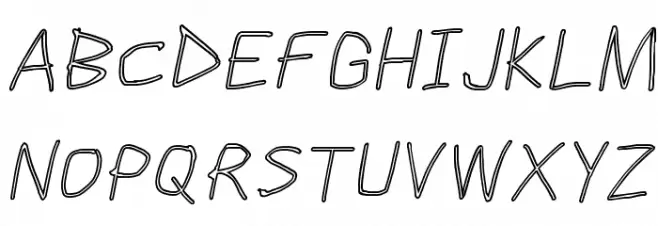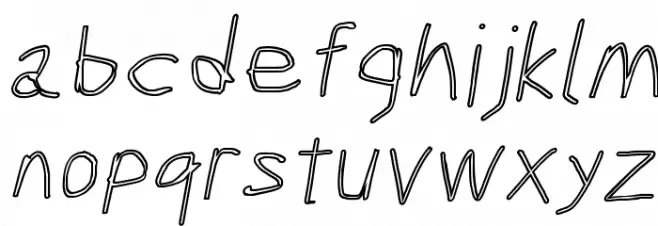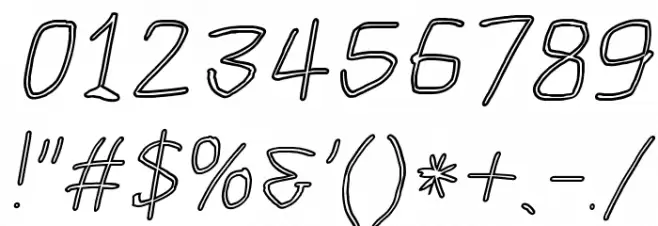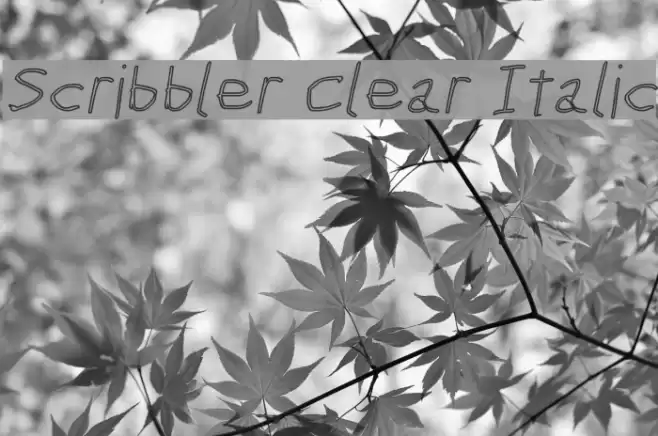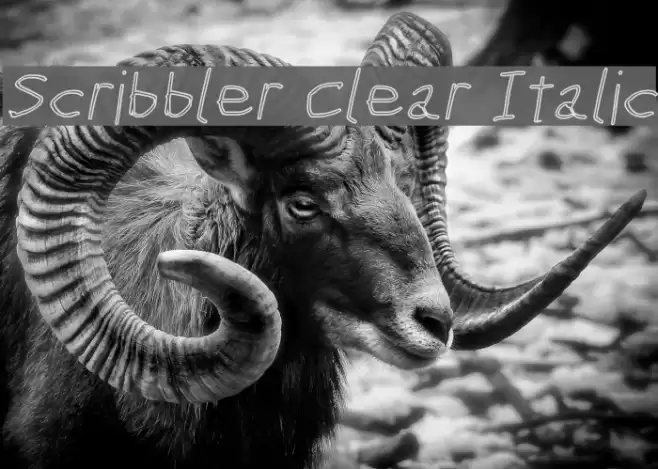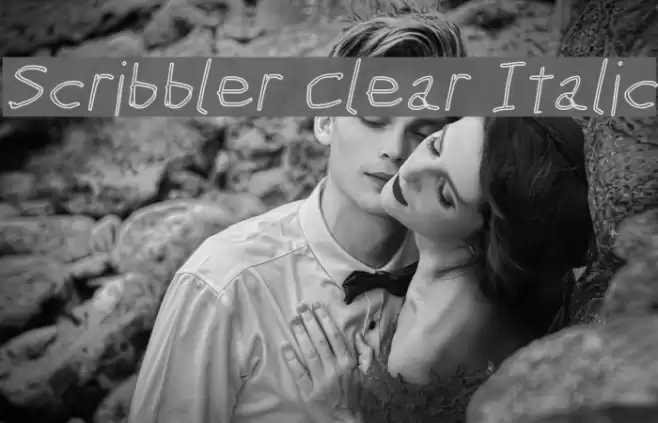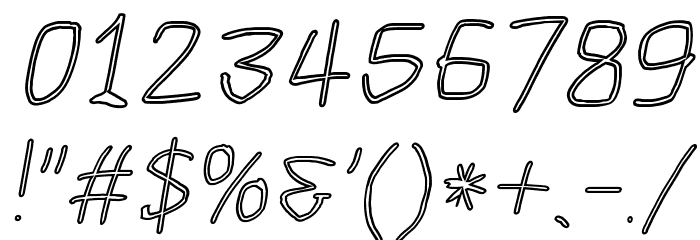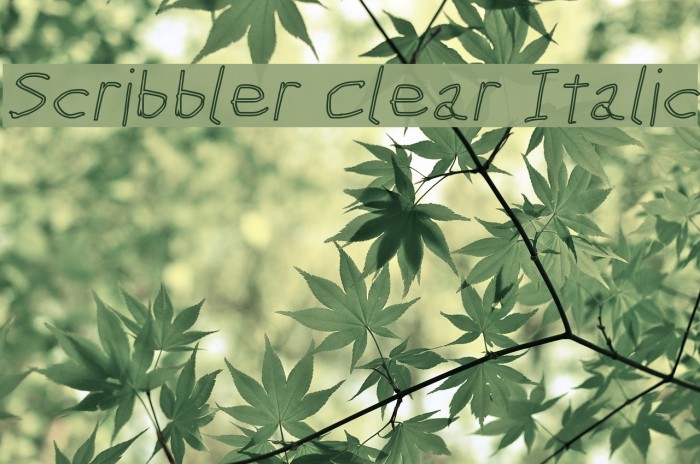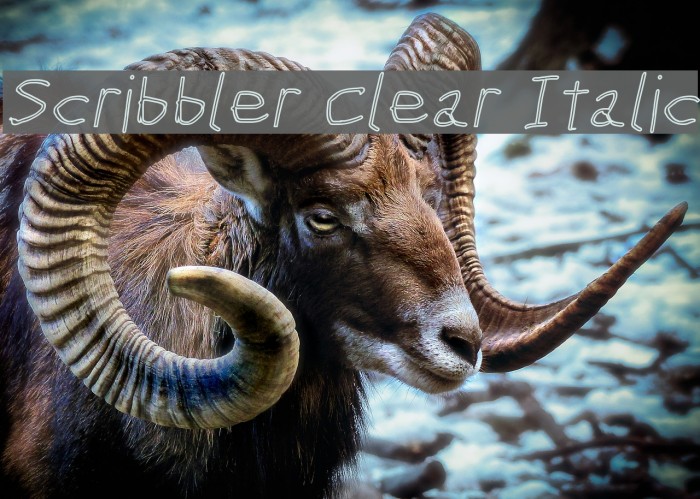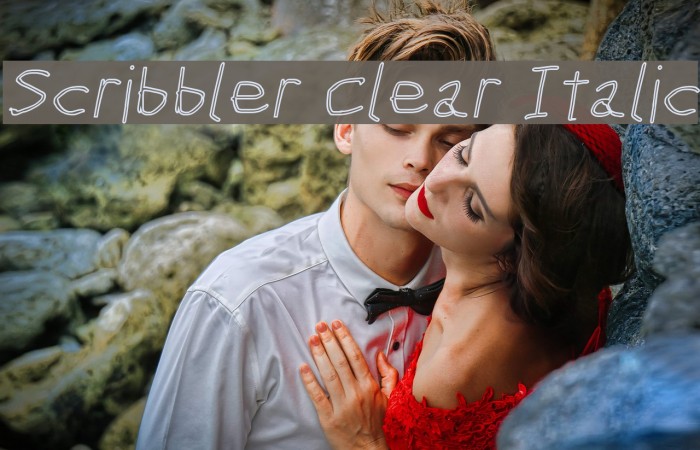
Scribbler Clear Italic
This font features a playful and casual handwritten style, characterized by its clear and slightly italicized letterforms. The strokes are consistent in width, giving it a uniform appearance, while the slight slant adds a dynamic and informal touch. The characters are well-defined with rounded edges, making them easy to read. The font includes a full set of uppercase and lowercase letters, numbers, and a variety of special characters, allowing for versatile use. Its simplicity and clarity make it suitable for projects that require a personal and approachable feel.
A playful, clear, and slightly italic handwritten font.
- Proposed Projects: Ideal for greeting cards, personal notes, informal branding, and children's book illustrations.
- Overall Style: Casual
- Use Case: Headlines, Informal text, Personal projects